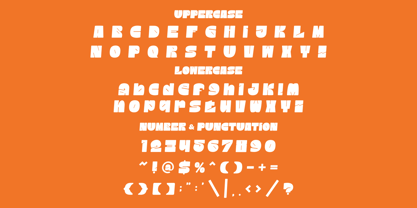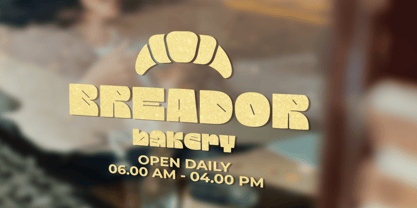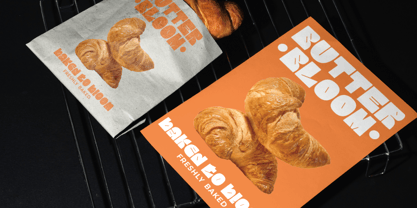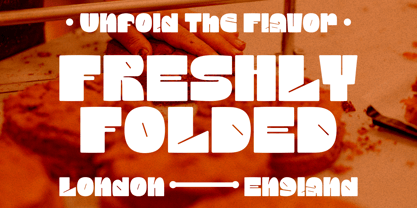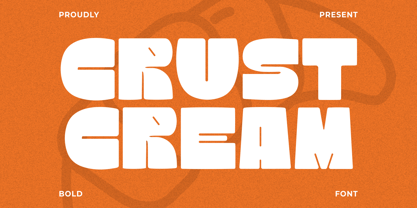
Crust Cream
von Shanaf
Die Schriftfamilie Crust Cream wurde von Yesie Erma Yunita entworfen und von Shanaf veröffentlicht. Crust Cream enthält 2 Stile und Familienpaketoptionen. Mehr über diese Familie
Crust Cream Bold Font delivers a thick display style with strong visual impact. The letterforms are wide, heavy, and chunky, creating instant attention in large layouts. Rounded corners soften the massive shapes and keep the design friendly. Tight spacing adds power, while solid strokes build a confident presence. Small carved cuts and angled details give motion and personality. This style feels playful, retro, modern, and energetic at once. Crust Cream Bold Font fits brands that want loud recognition and memorable identity. It works well for bakery shops, dessert stores, coffee brands, snack labels, street food logos, beverage packaging, and creative retail businesses. Use it when branding needs warmth, appetite appeal, and bold character.
The font performs strongly in headlines, posters, menus, packaging, signage, stickers, book covers, magazine titles, social media ads, and storefront displays. Uppercase letters look dominant and structured, while lowercase forms feel casual and approachable. Its fat proportions help short words become focal points fast. Rounded geometry makes messages friendly without losing authority. This typeface suits themes such as vintage diners, urban food spots, modern cafés, playful promotions, artisan goods, and fun business launches. It also matches quote graphics, crafting labels, film titles, event banners, and promotional cards. Every composition gains a solid voice that feels tasty, upbeat, and easy to remember.
Designer: Yesie Erma Yunita
Foundry: Shanaf